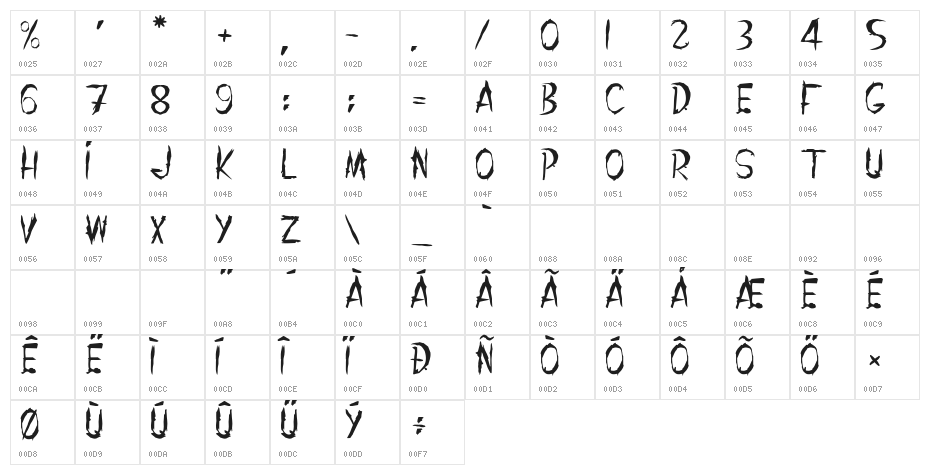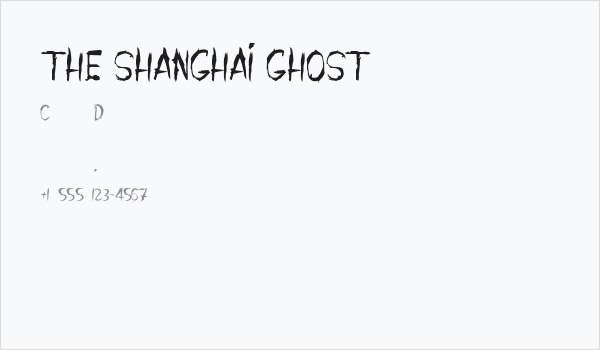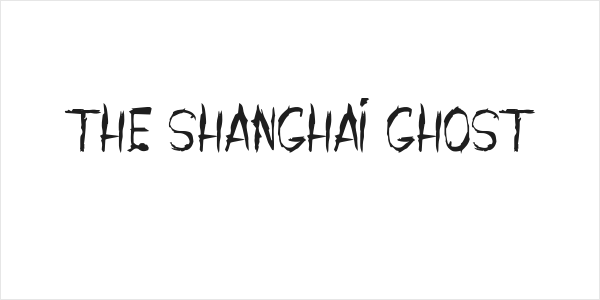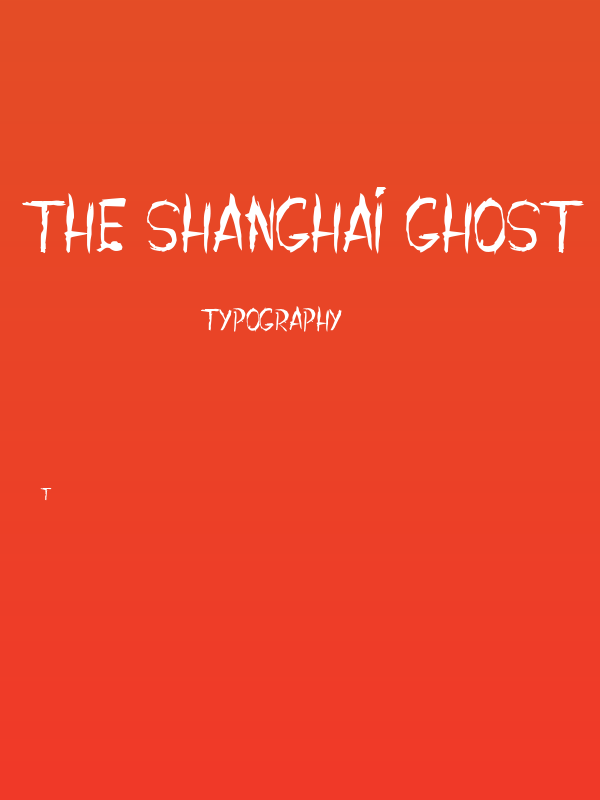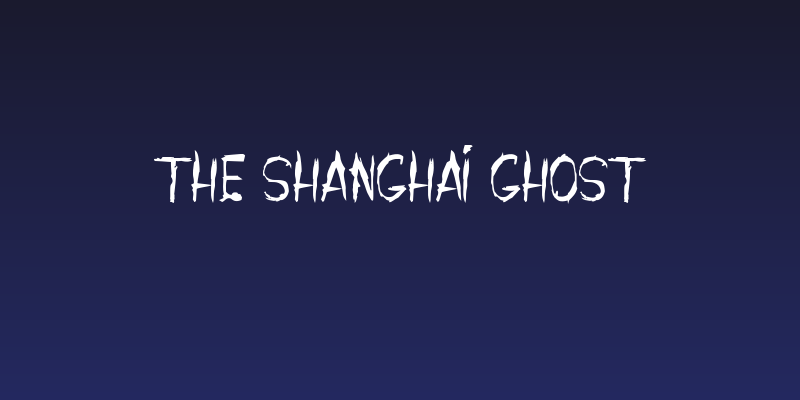
THE SHANGHAI GHOST Font
THE SHANGHAI GHOST Description
This font features a bold and dramatic style with sharp, jagged edges that give it a ghostly and mysterious appearance. The characters are uneven and irregular, resembling brush strokes or torn paper, which adds to its eerie and haunting aesthetic. The uppercase and lowercase letters maintain a consistent style, with each character exhibiting unique variations that enhance the font's dynamic and unpredictable nature. The numbers and special characters follow the same design principles, ensuring a cohesive look across all elements.